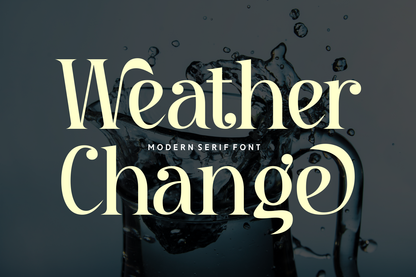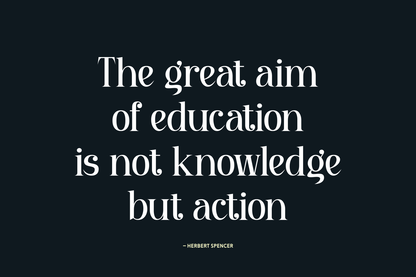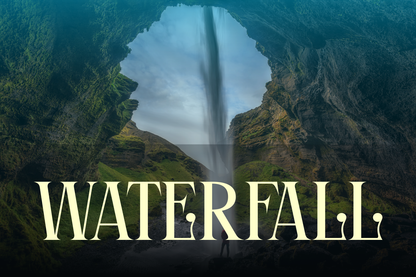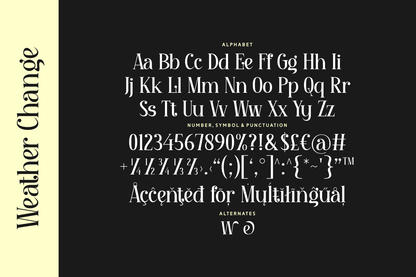
Weather Change is a dramatic serif font with fluid, artistic curves that create visual movement and flair. Its unique letterforms blend traditional elegance with a sense of motion, making it ideal for eye-catching headlines, expressive branding, and creative editorial work. The name suits it perfectly—this font changes the atmosphere of any design.
With high contrast and memorable shapes, Weather Change is the perfect balance between experimental and elegant. It’s for designers who want to bring rhythm and emotion to their typography.